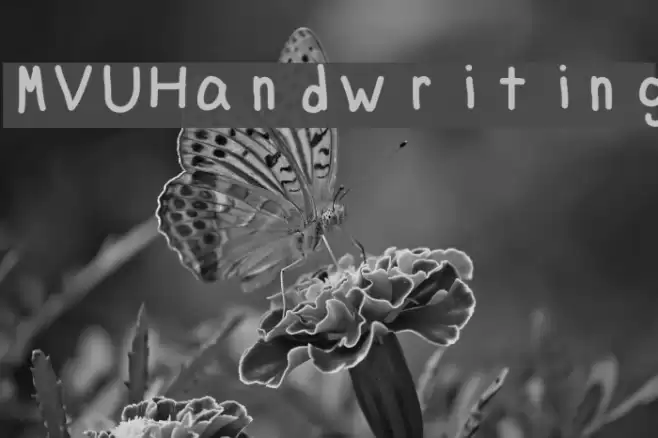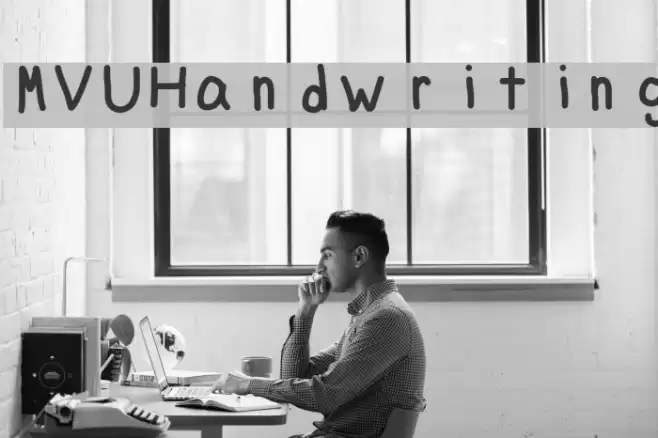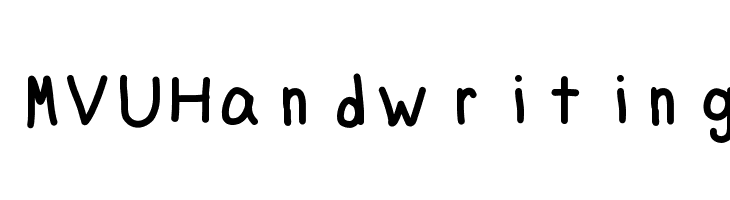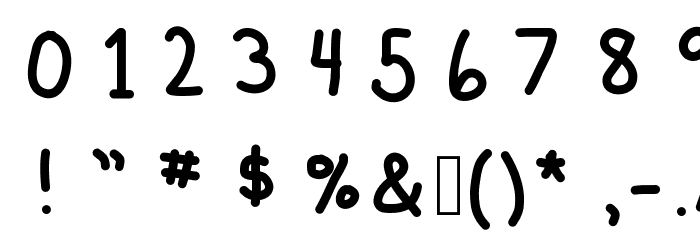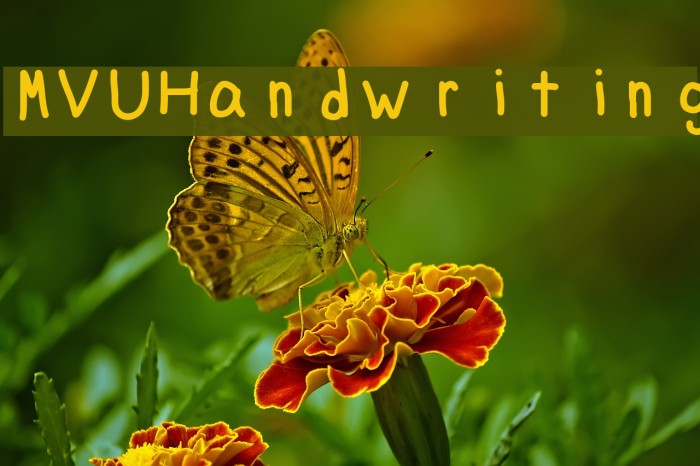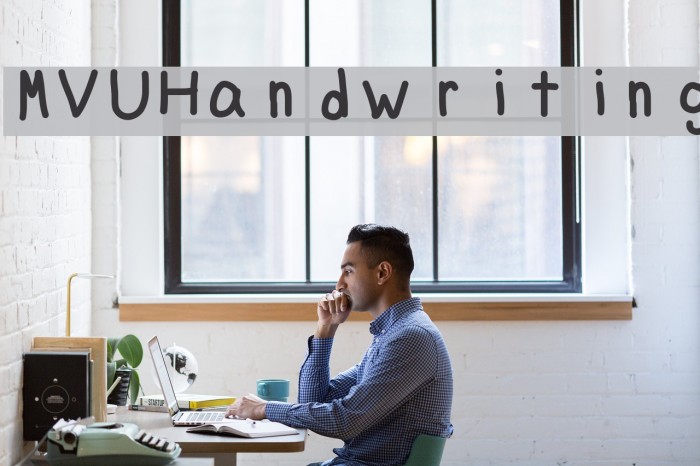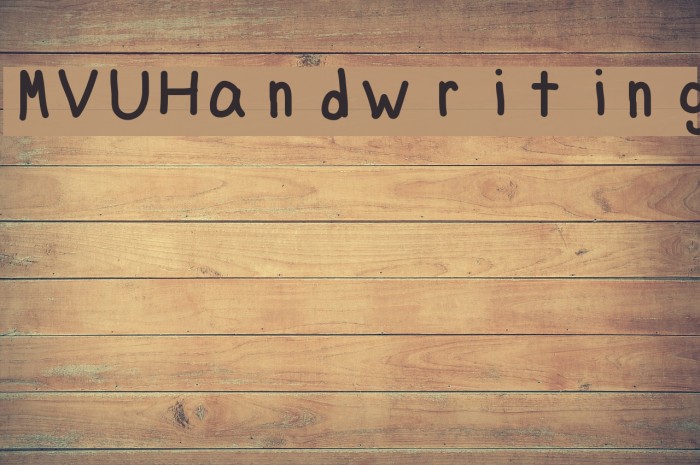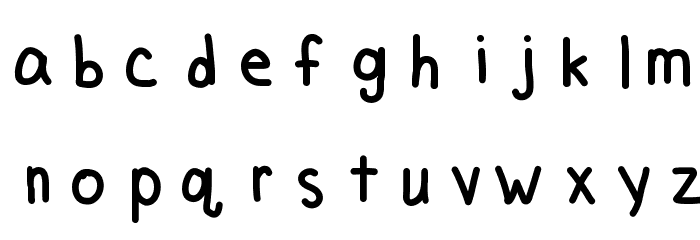
MVUHandwriting Font
MVUHandwriting Description
This font features a playful and casual handwritten style, characterized by its rounded and slightly irregular letterforms. The strokes are consistent in width, giving it a uniform appearance while maintaining a friendly and approachable feel. The uppercase and lowercase letters are well-balanced, with a slight tilt that adds to the informal aesthetic. The numerals and special characters follow the same design principles, ensuring cohesion across all elements. This font is ideal for projects that require a personal touch, such as invitations, greeting cards, or children's books.
A playful, casual handwritten font with rounded, consistent strokes from Uncategorized fonts.
- Proposed Projects: Ideal for invitations, greeting cards, children's books, and personal projects.
- Overall Style: Casual
- Use Case: Headlines, Informal text, Personal projects